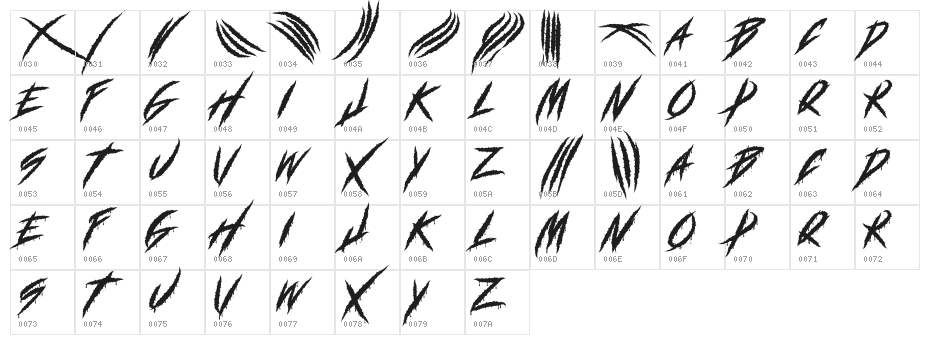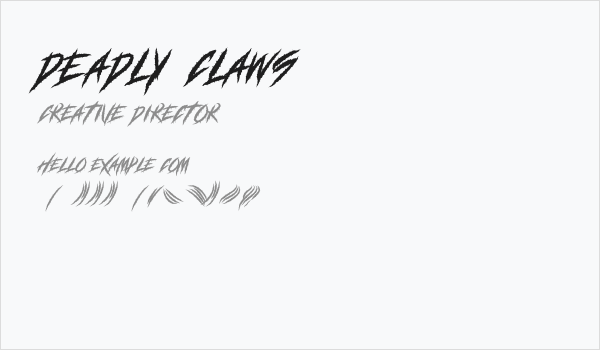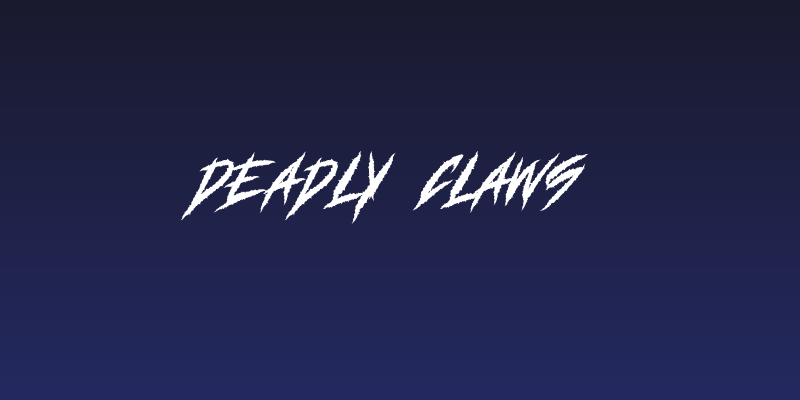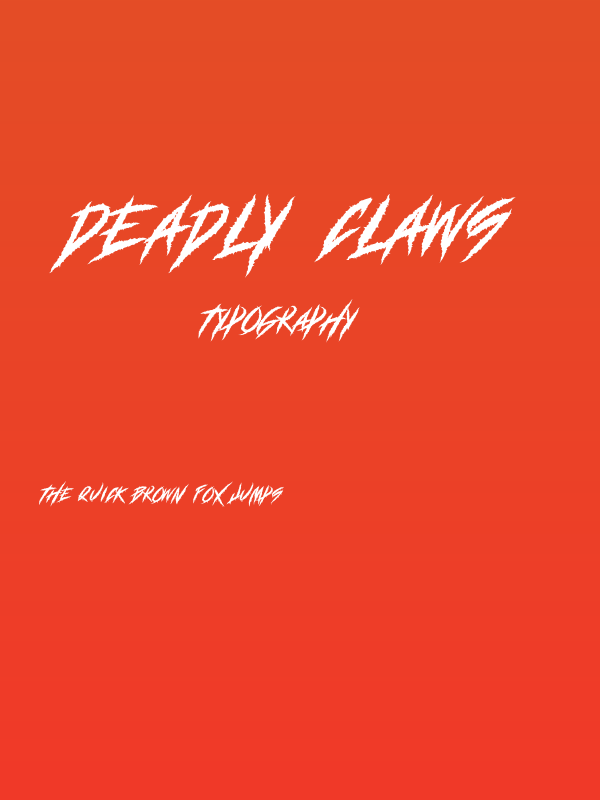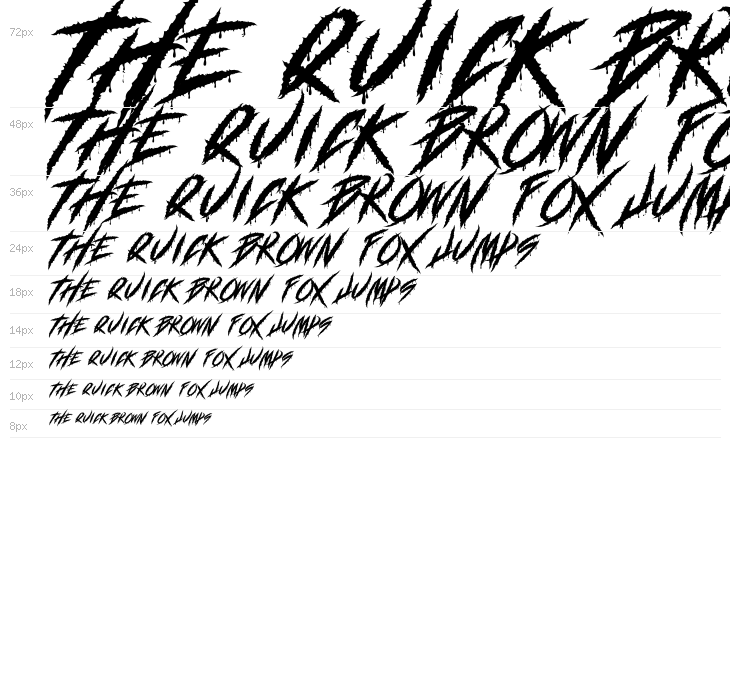
DEADLY CLAWS Font
DEADLY CLAWS Description
This font exudes a fierce and edgy aesthetic, characterized by sharp, jagged edges that mimic the look of claw marks. The strokes are bold and dynamic, creating a sense of movement and aggression. Each letter is uniquely crafted to enhance the wild and untamed feel, making it perfect for projects that require a strong visual impact. The uppercase and lowercase letters maintain a consistent style, ensuring cohesion across any text. The font's design is highly decorative, making it ideal for attention-grabbing headlines or thematic designs that require a touch of intensity.
| Proposed Projects | Ideal for horror-themed posters, edgy branding, video game titles, or any design needing a dramatic flair. |